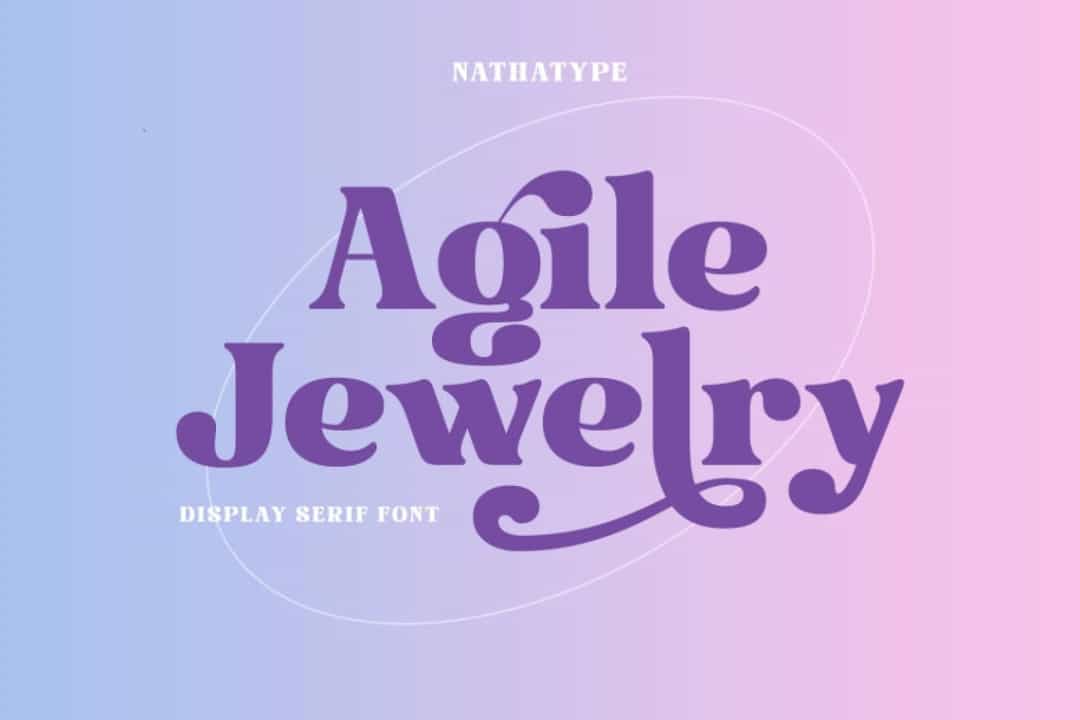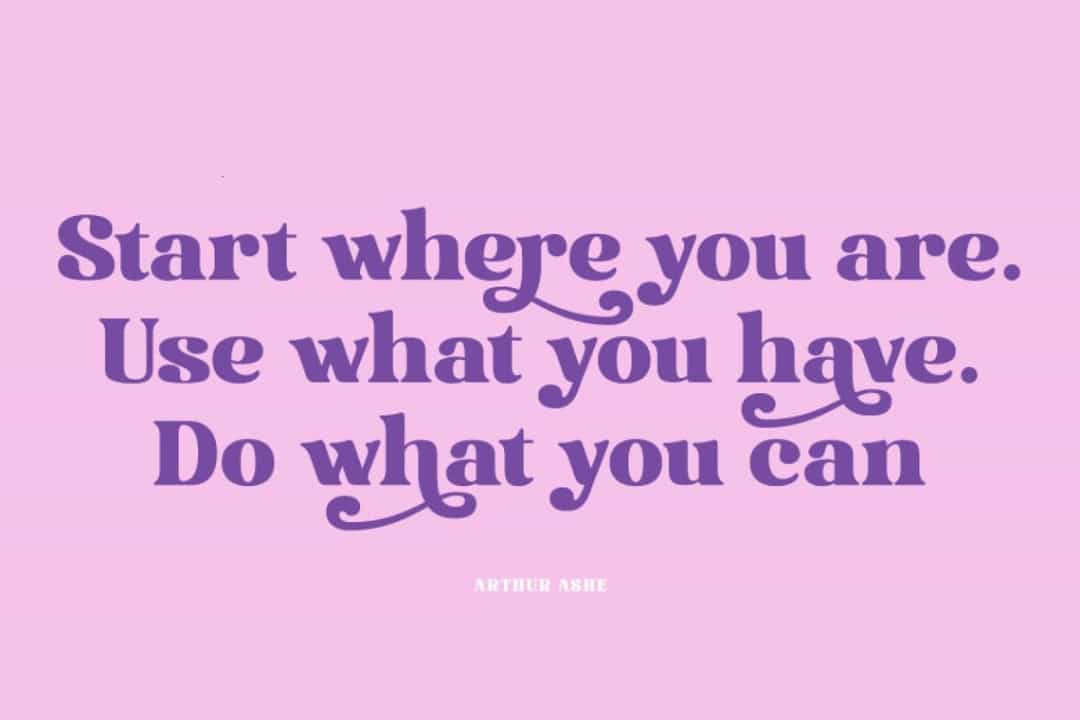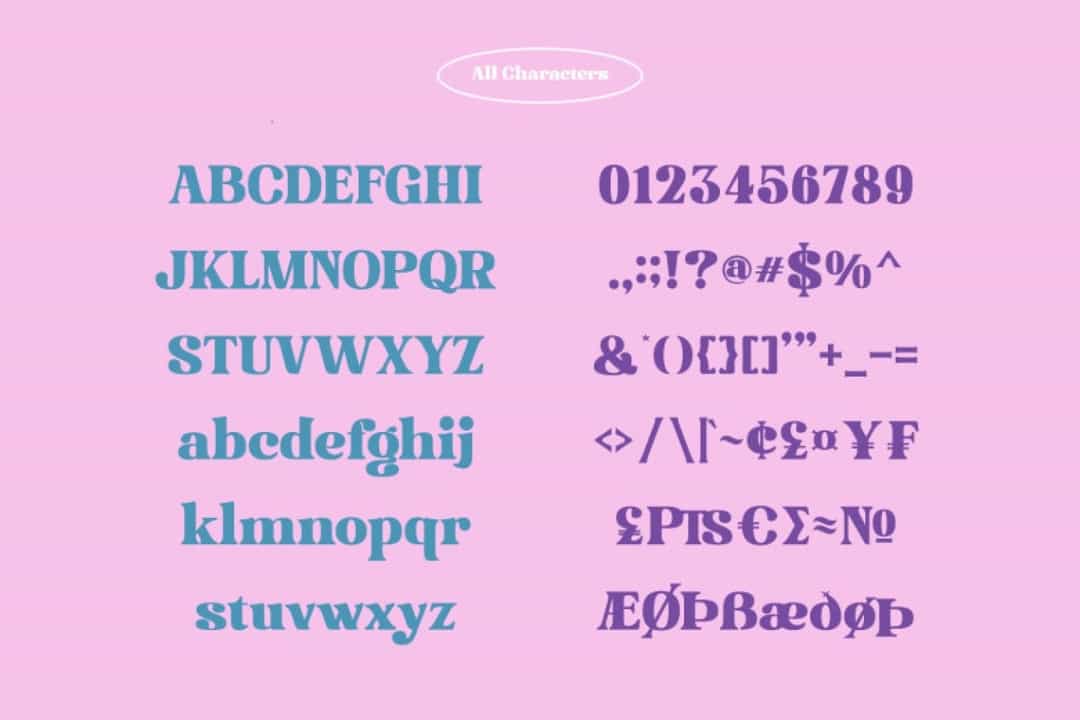
Agile Jewelry is an elegant modern display serif font that creates informal yet modern impressions. This font stands out due to its special features: additional hooks placed along the edges of letters and curvy wipes at their ends.